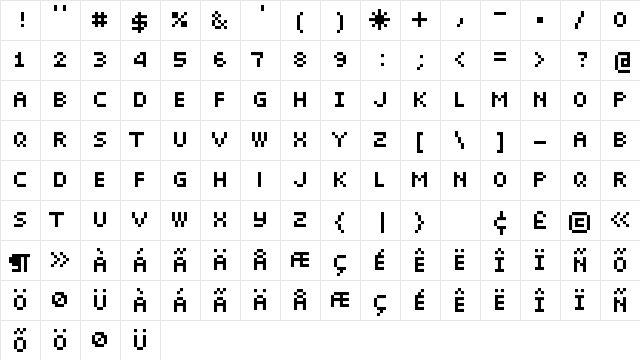
Pixelette Regular
Design Context for Pixelette Typeface
Pixelette is rooted in pixel-grid construction, making it a natural fit for game UI, retro computing aesthetics, and digital nostalgia projects.
A natural choice for retro game titles, chiptune music branding, 8-bit UI, and digital nostalgia projects.
Pro Tip: Pair Pixelette with flat colour palettes and simple geometric UI elements to reinforce its digital aesthetic.